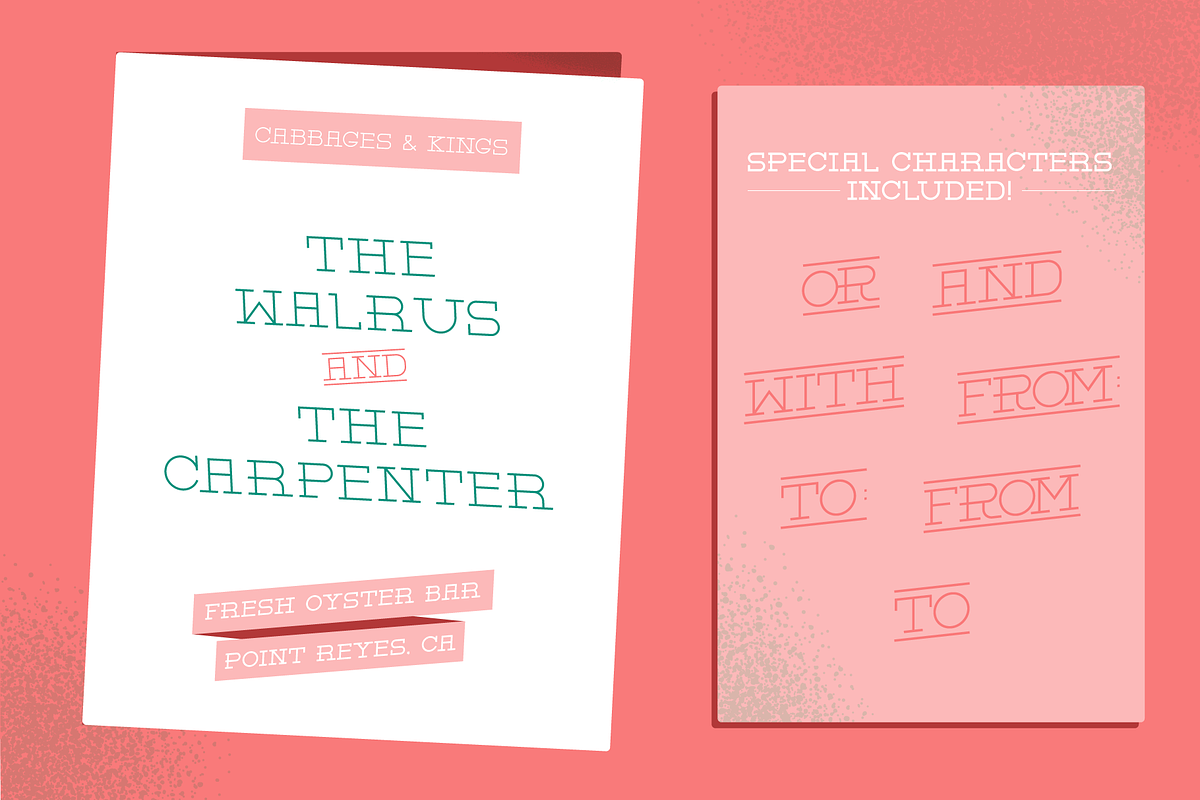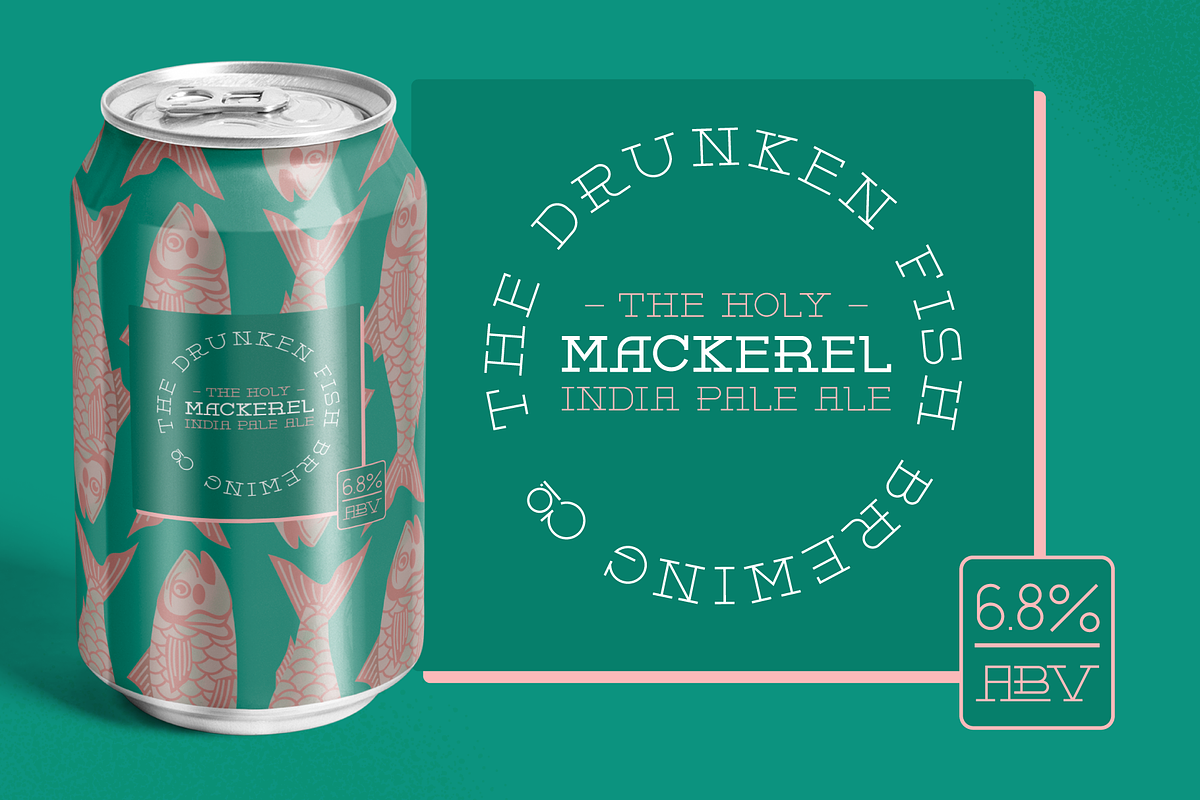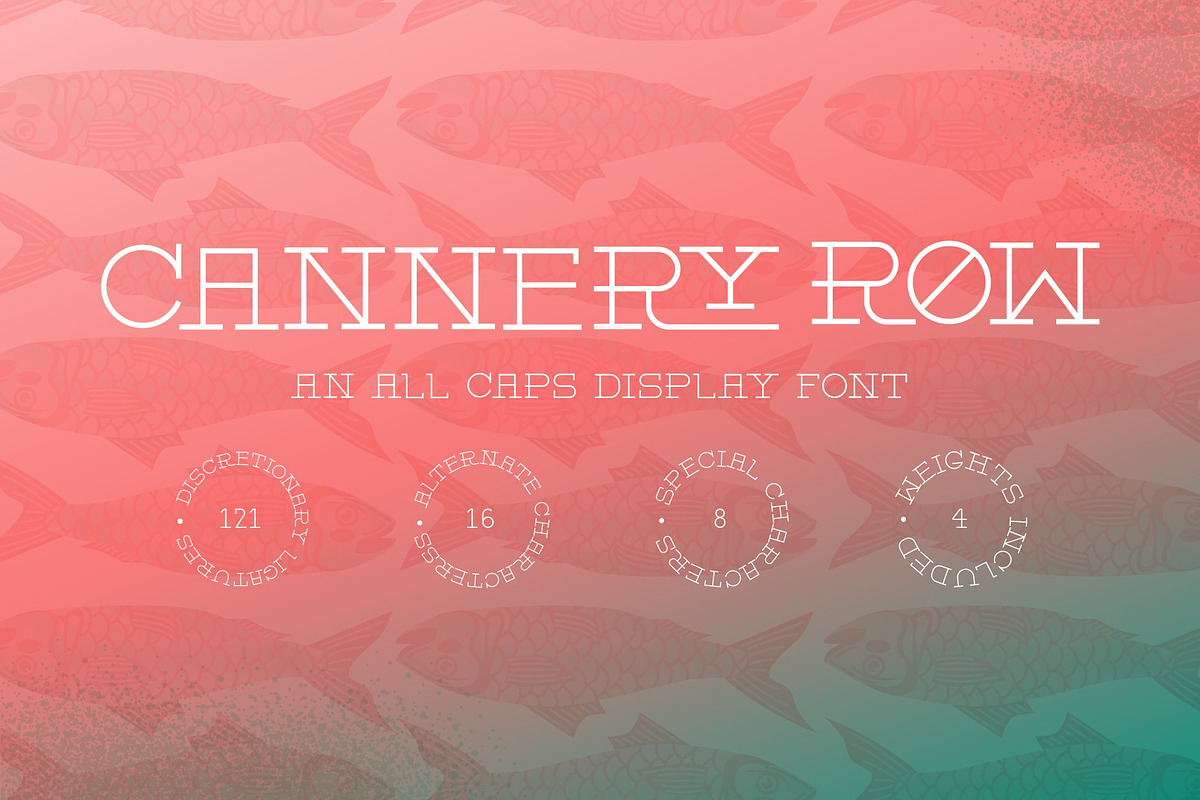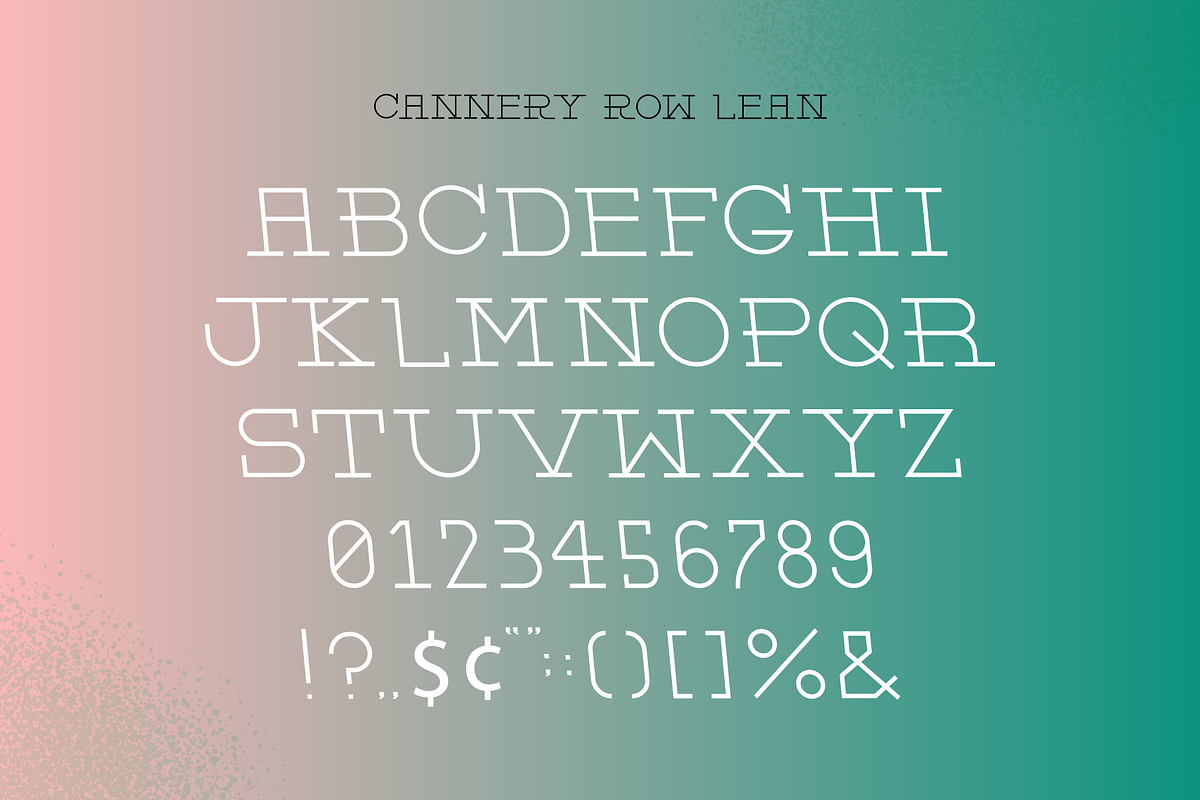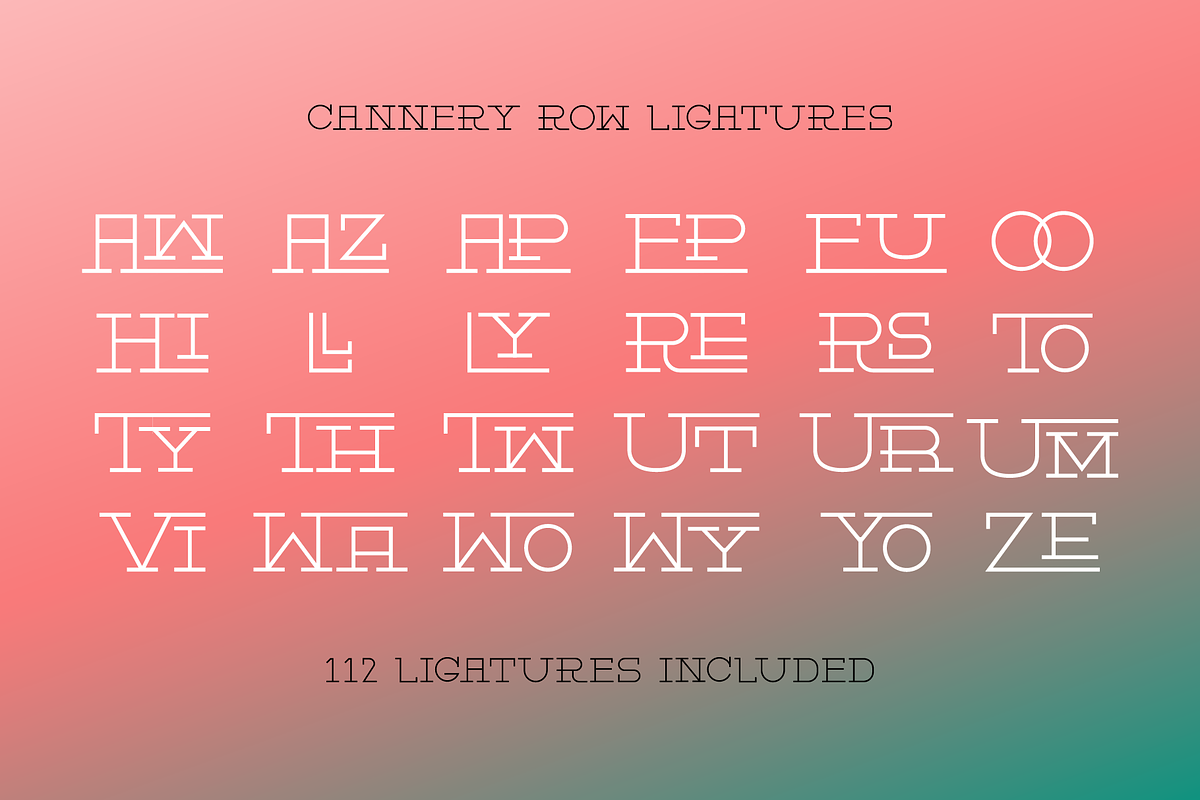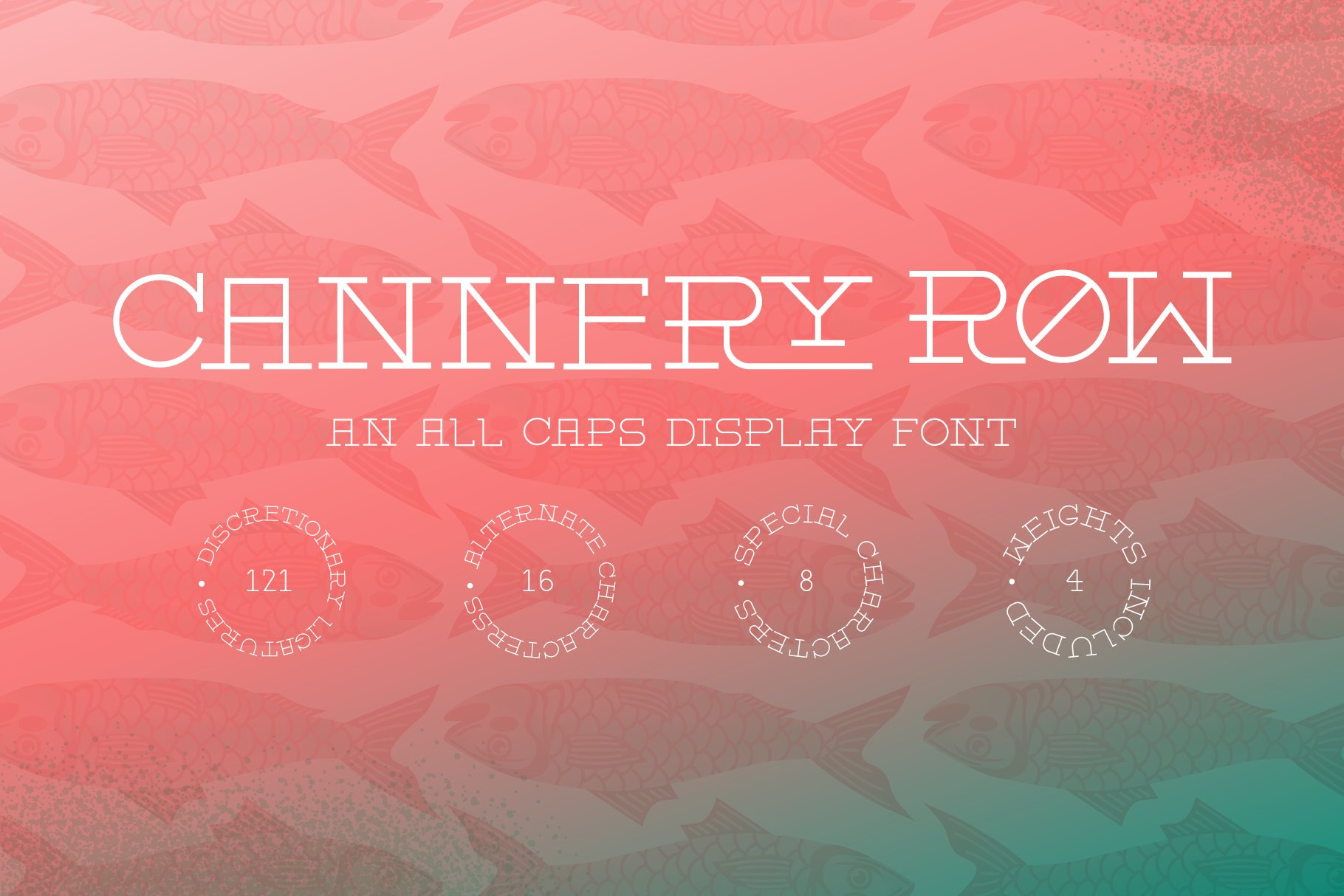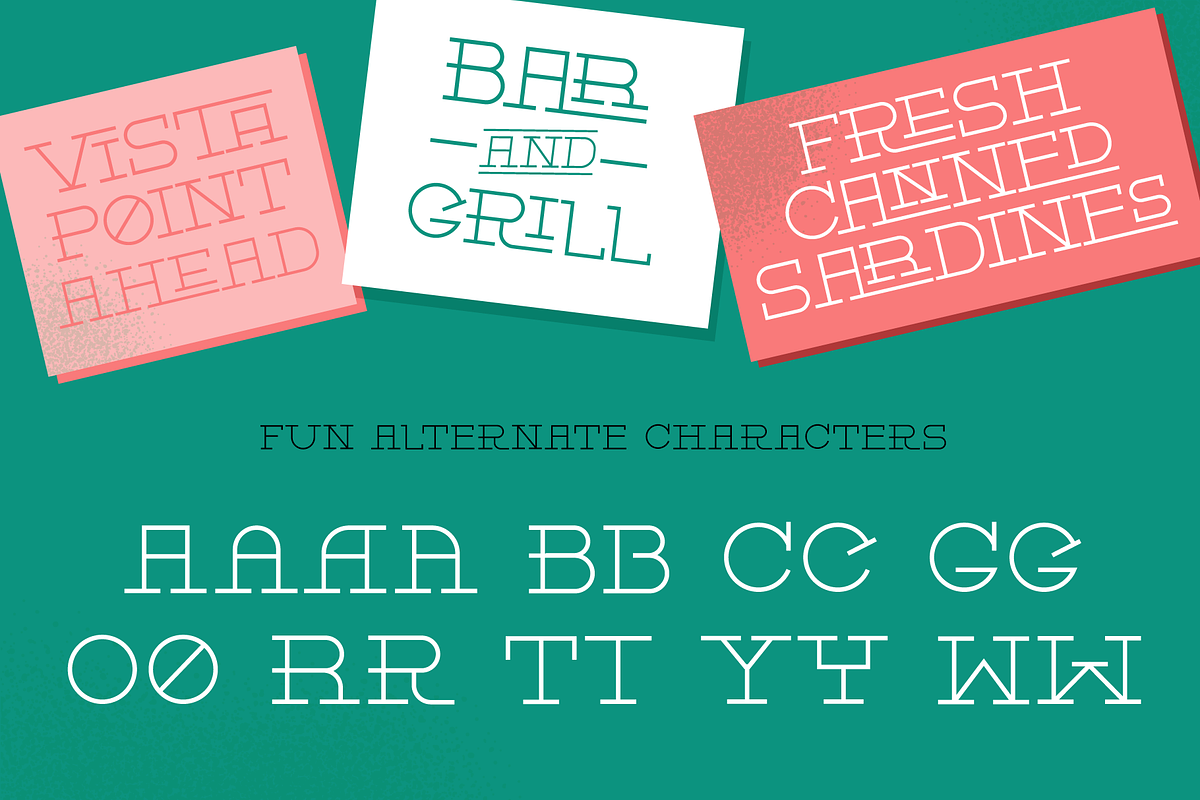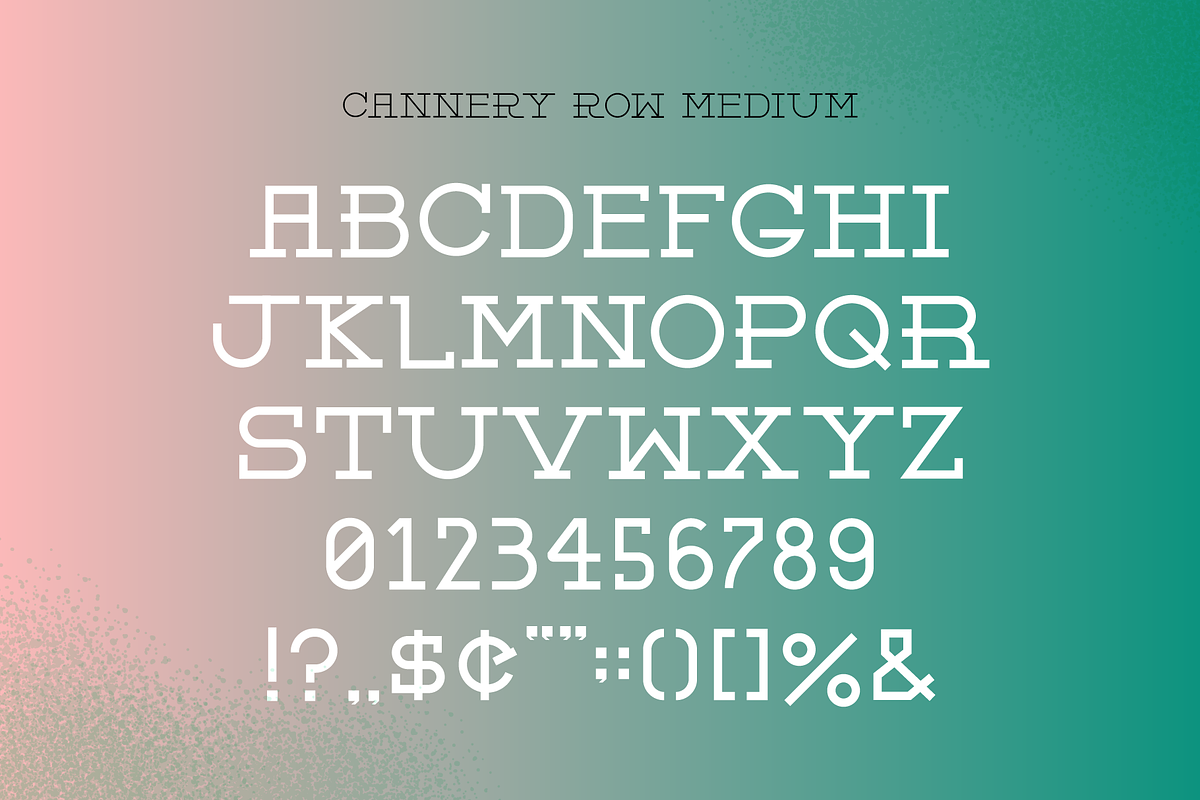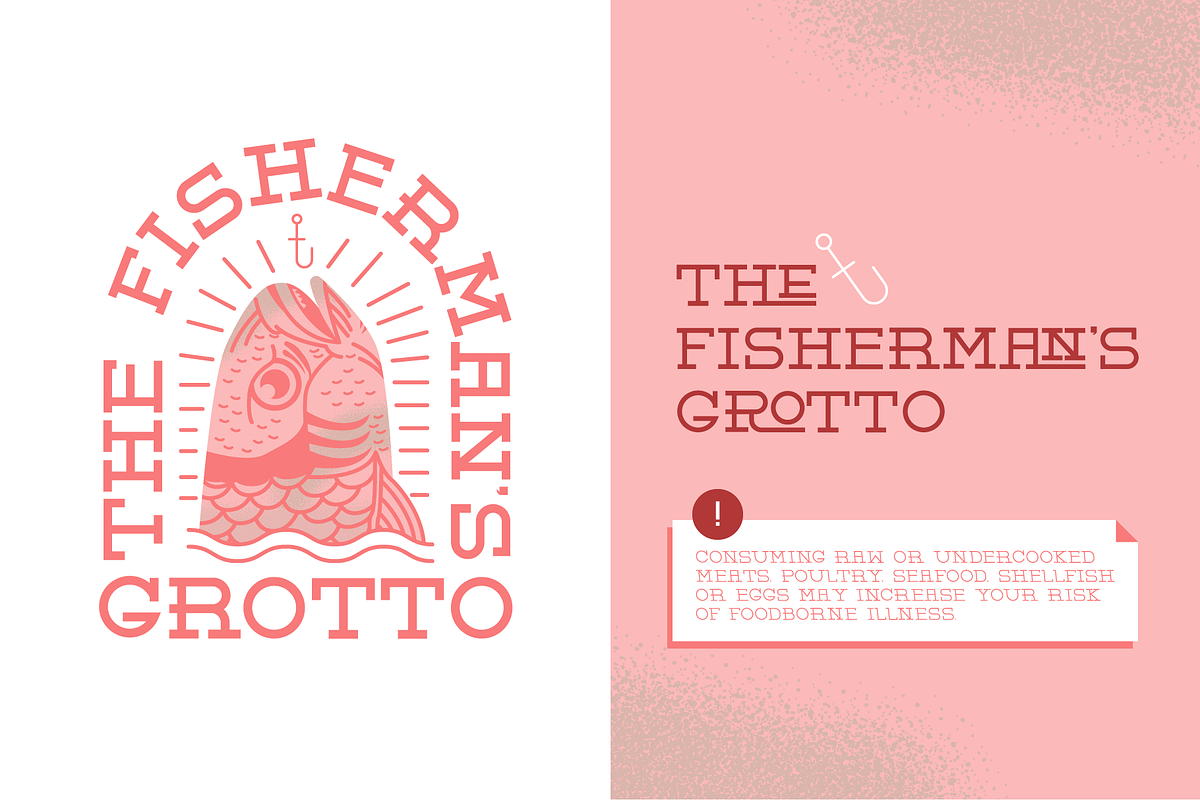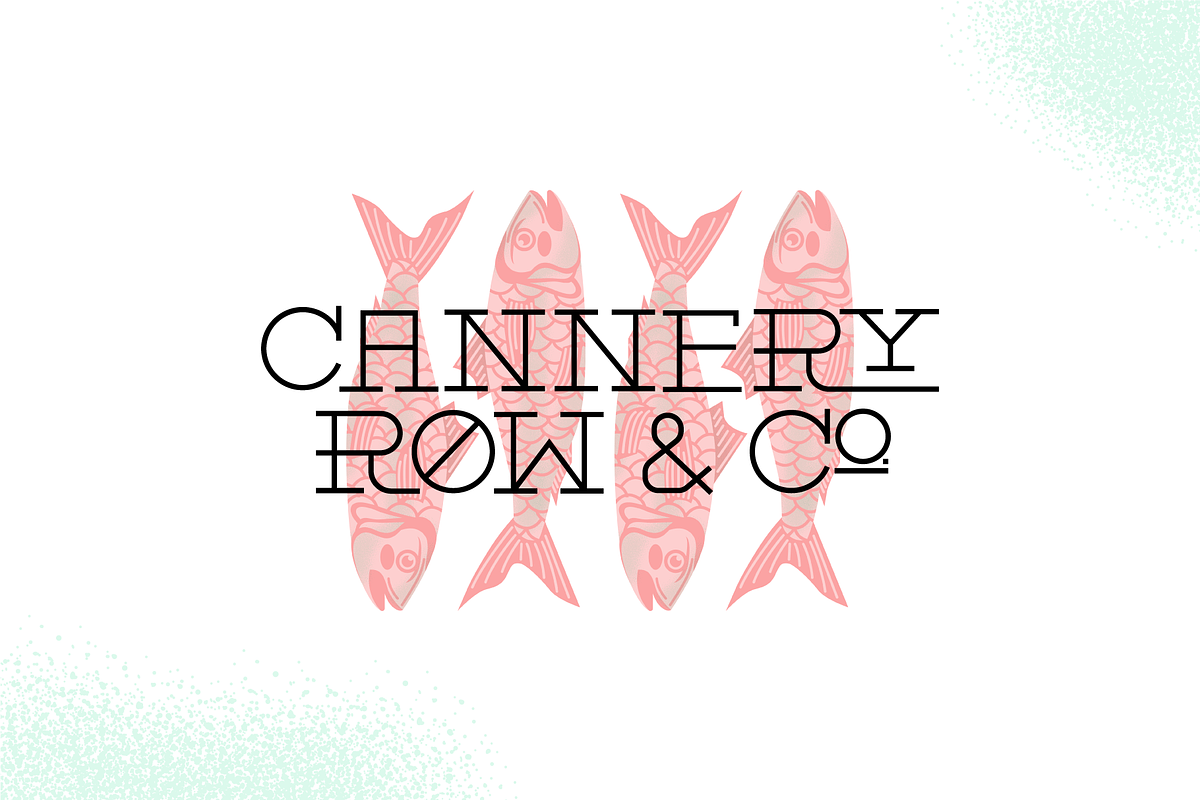
Cannery Row Slab Serif Display Font
Cannery Row is an all caps slab serif display font that includes four weights. It has many ligatures, a few special characters, and alternate characters for some letters. The font is perfect for logos, branding, pull-quotes, business cards, and headlines. It is a modern font with retro vibes.
Cannery Row includes: Full Alphabet Full set of numerals Select Punctuation 121 Discretionary Ligatures 16 Alternate Characters 8 Special Characters 4 Weights - Regular, Lean, Medium, and Bold